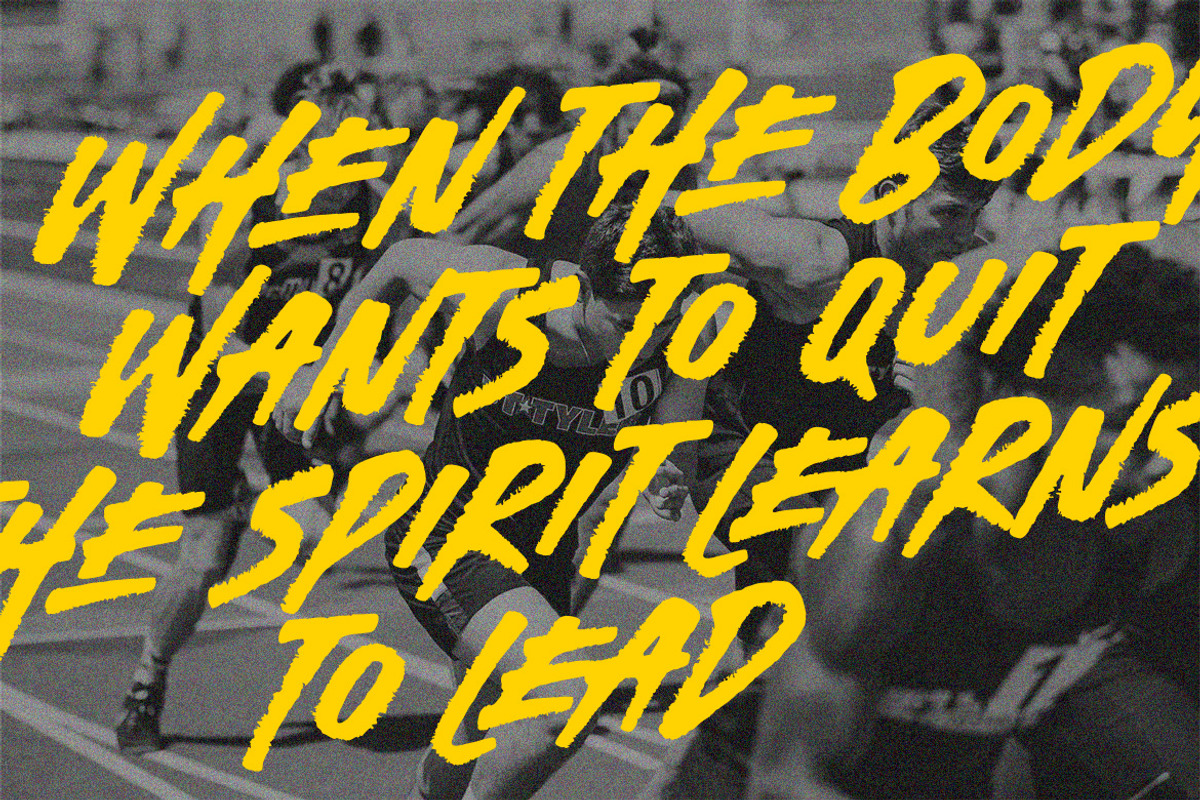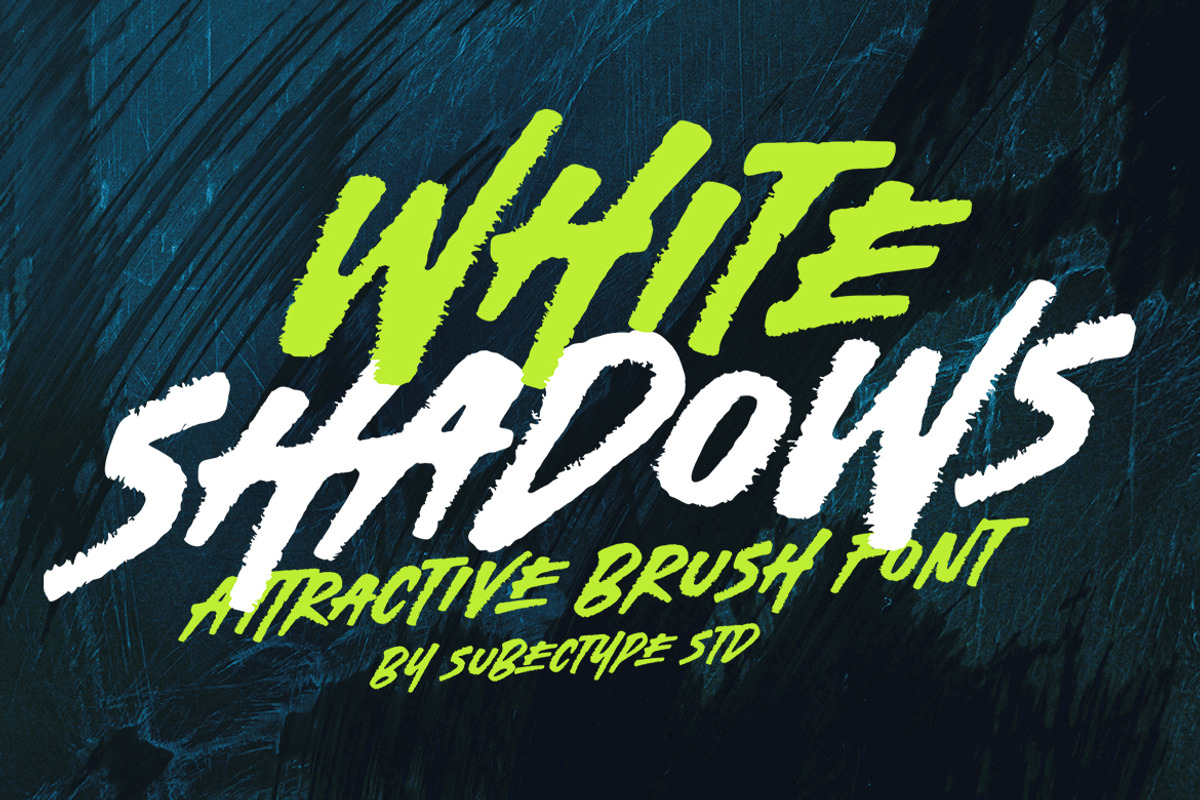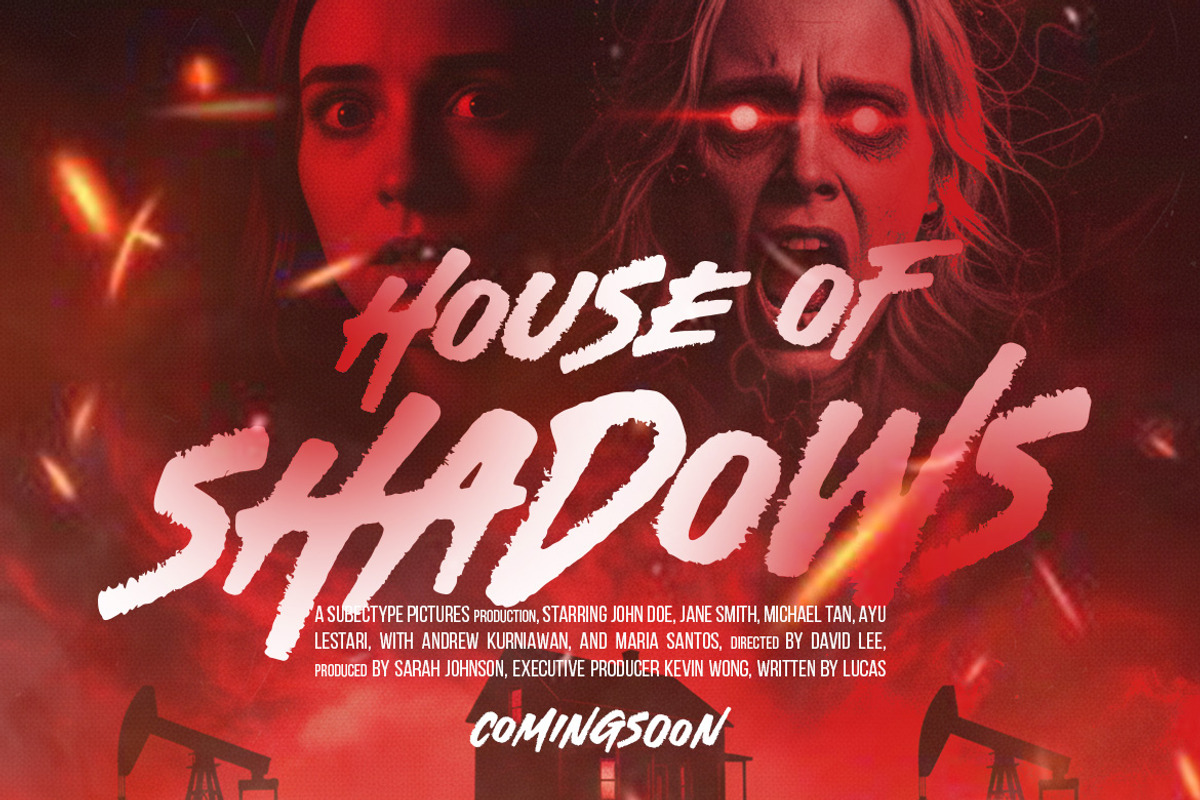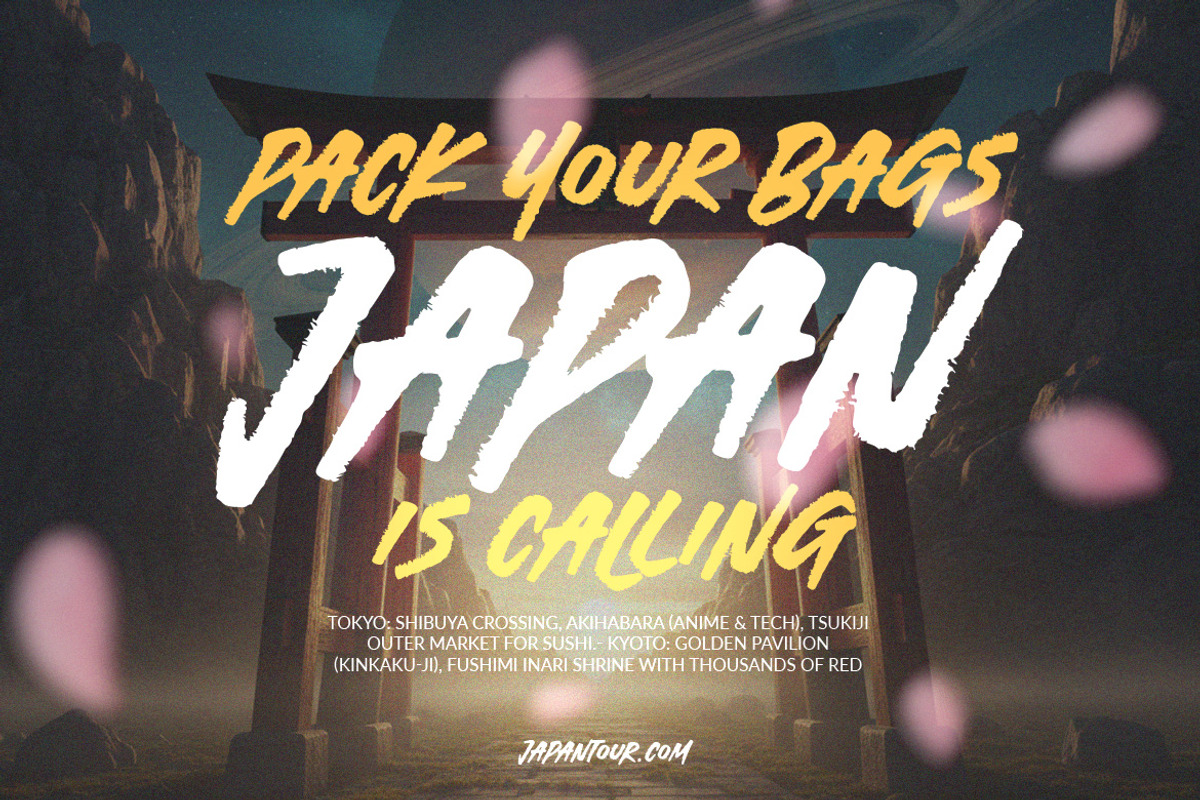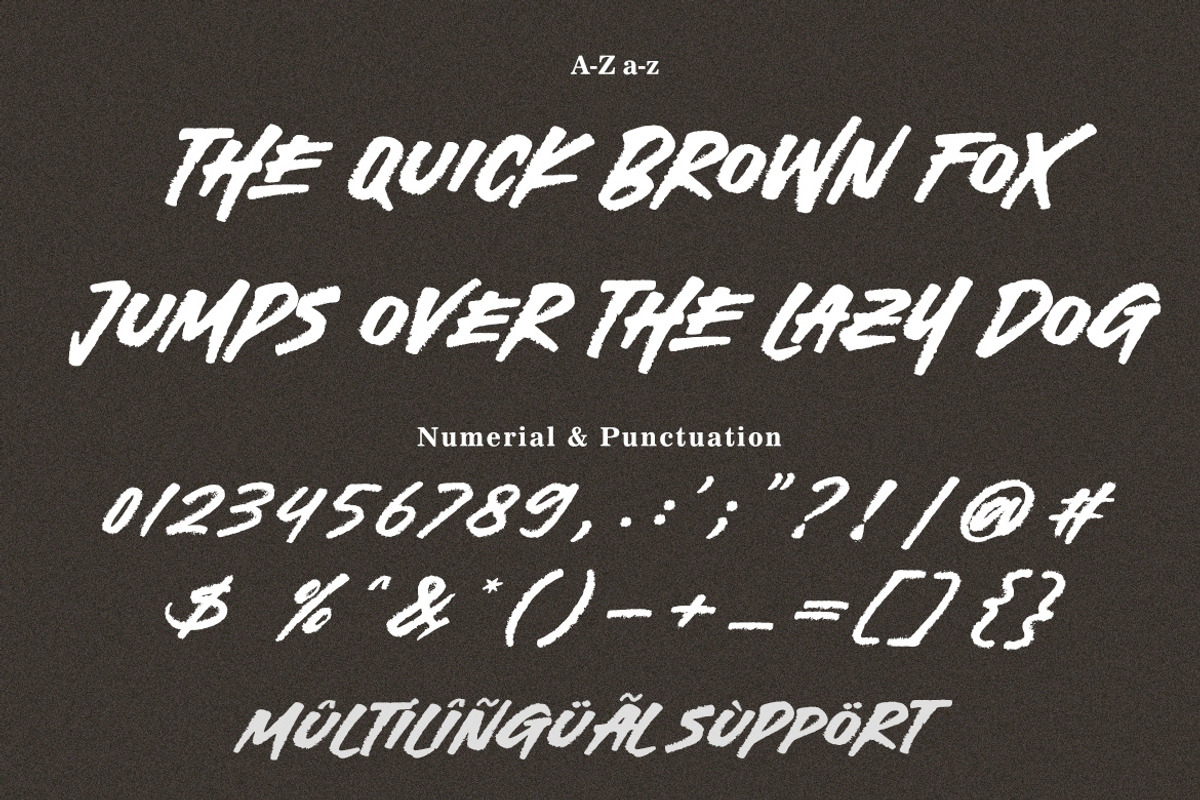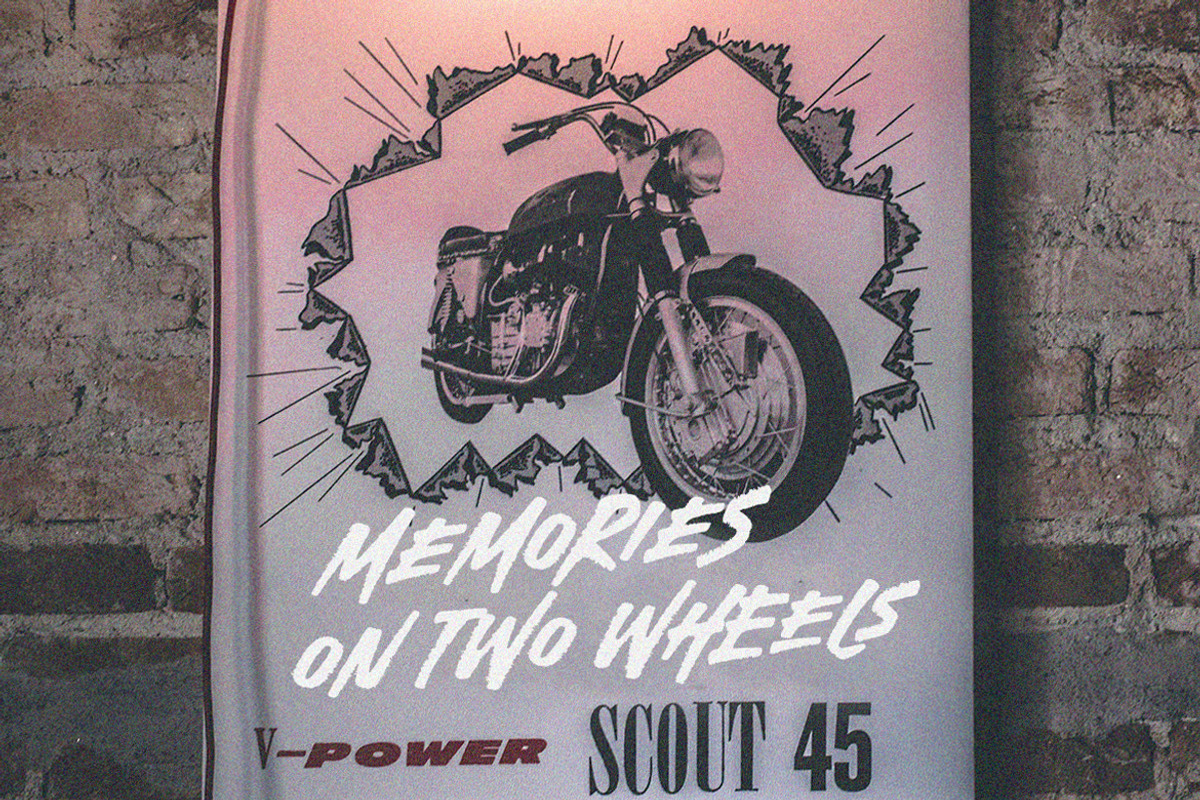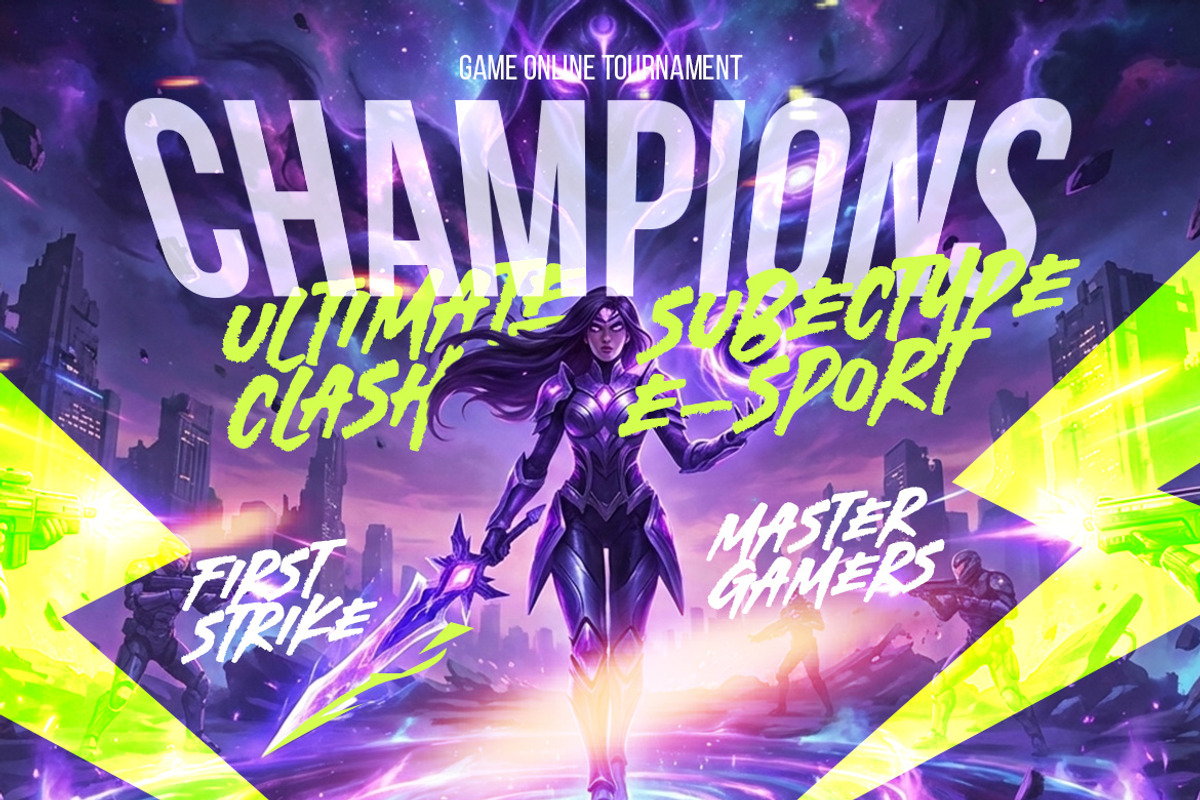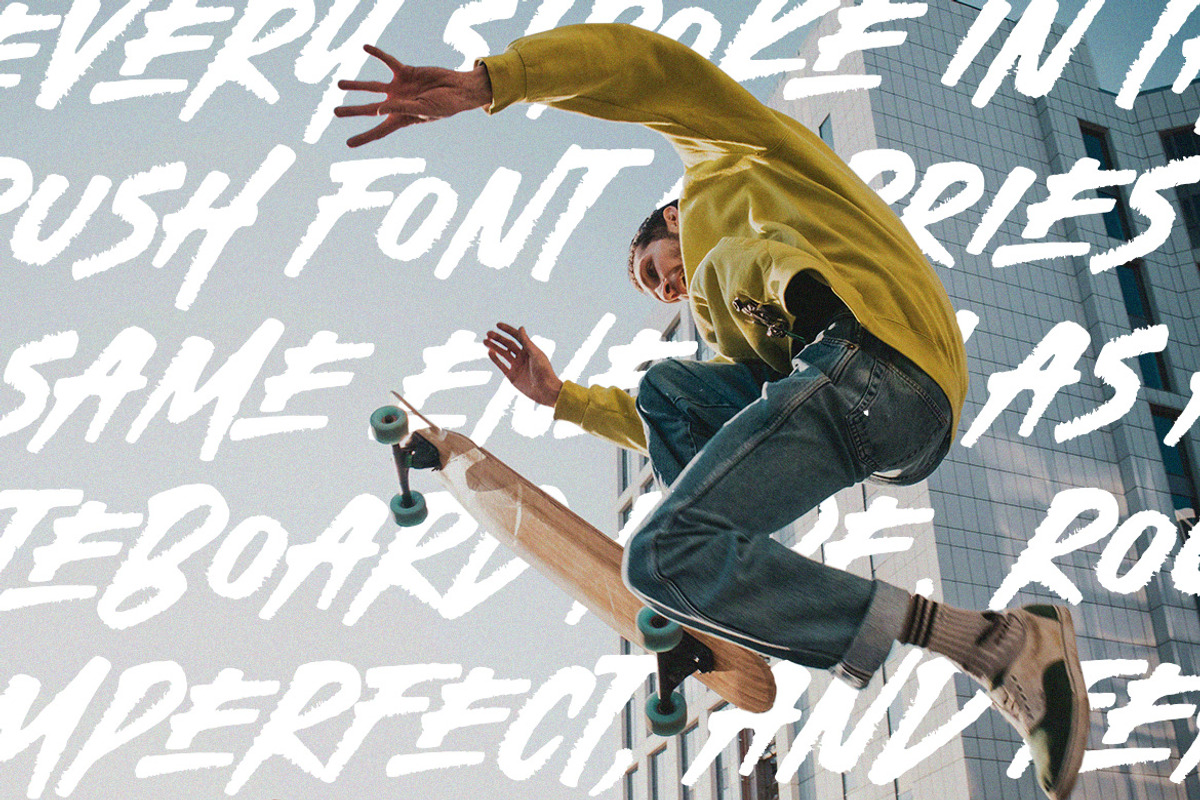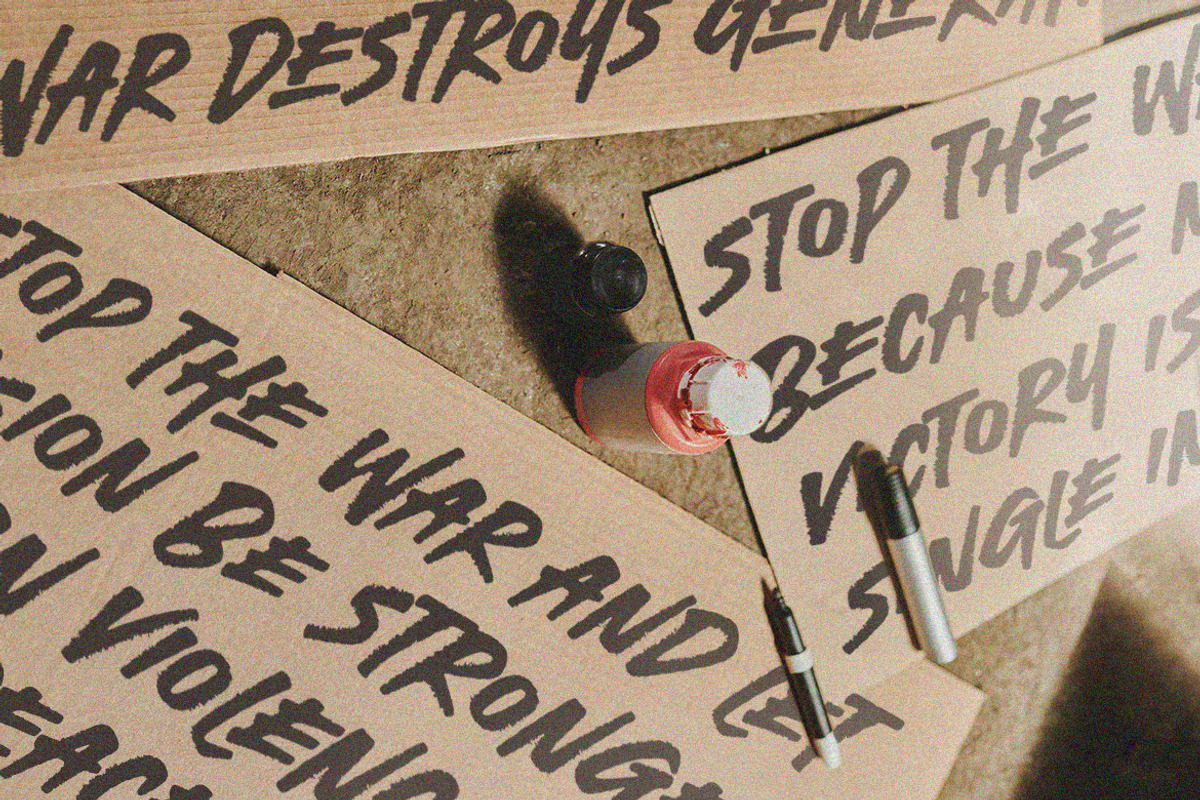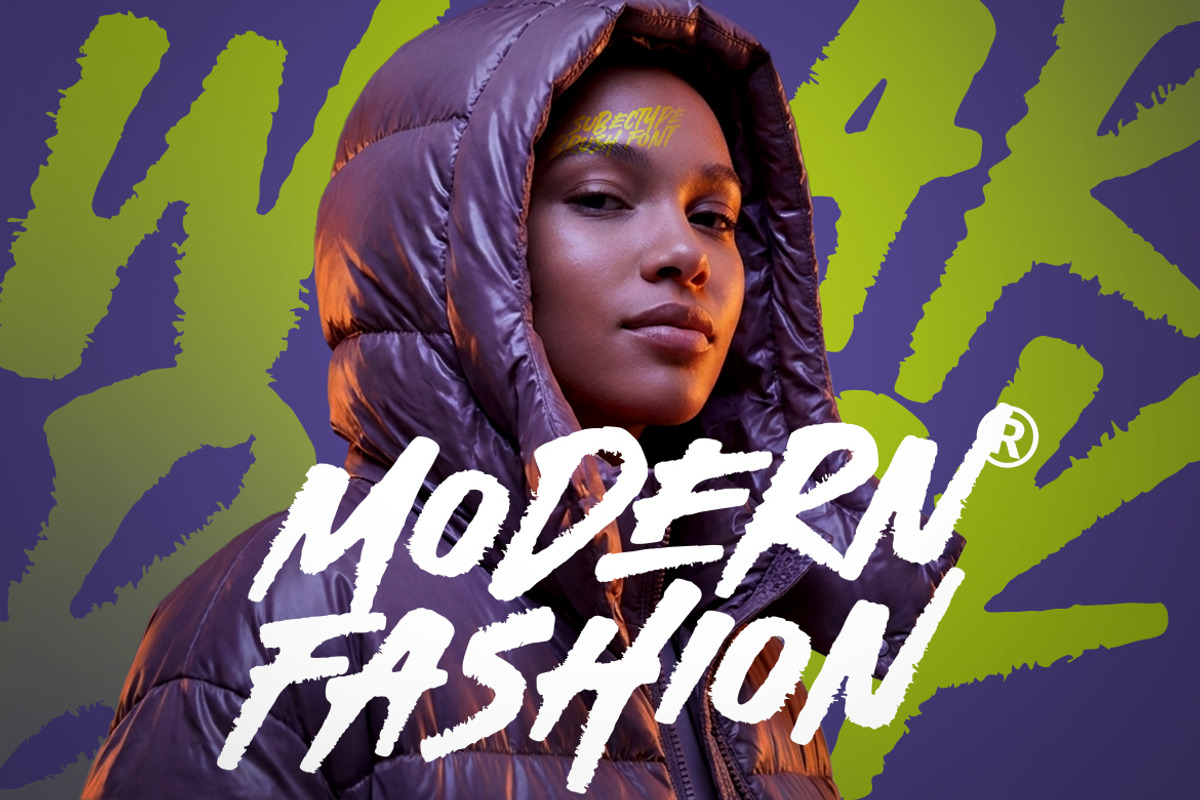
White Shadows - Brush Fonts
Say hello to "White Shadows". This attractive brush font is crafted with bold, dynamic strokes that capture energy, movement, and strength, making it perfect for sport and adventure themes. Each stroke delivers a sense of motion and confidence, inspired by action, speed, and outdoor challenges. Its expressive and powerful character helps designs stand out instantly, making it ideal for sports, outdoor branding, event posters, team logos, and adventure-driven visuals that demand impact and excitement.